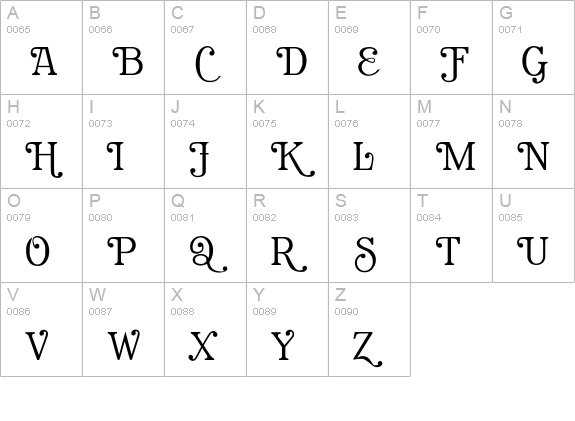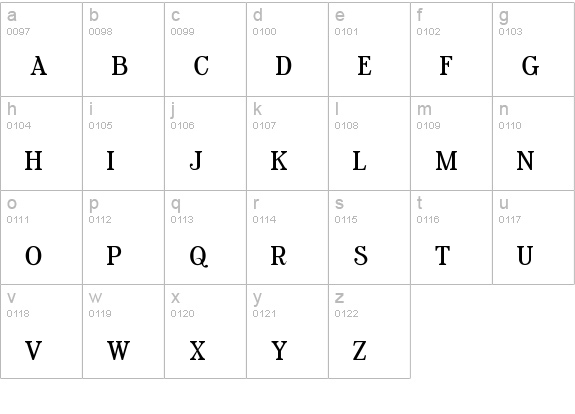
Rubinstein Font Details
Rubinstein font is a stunning typeface that exudes elegance and sophistication. Its sleek and modern design makes it perfect for a wide range of design projects, from branding to editorial layouts. The clean lines and graceful curves of Rubinstein font give it a timeless quality that is sure to make your text stand out. The best part? Rubinstein font is completely free to download at FontsMarket.com. This means you can elevate your designs with this beautiful font without having to spend a dime. Whether you're working on a personal project or a professional assignment, Rubinstein font is a versatile choice that will add a touch of class to your work. Download it today and see for yourself the impact this font can have on your designs.